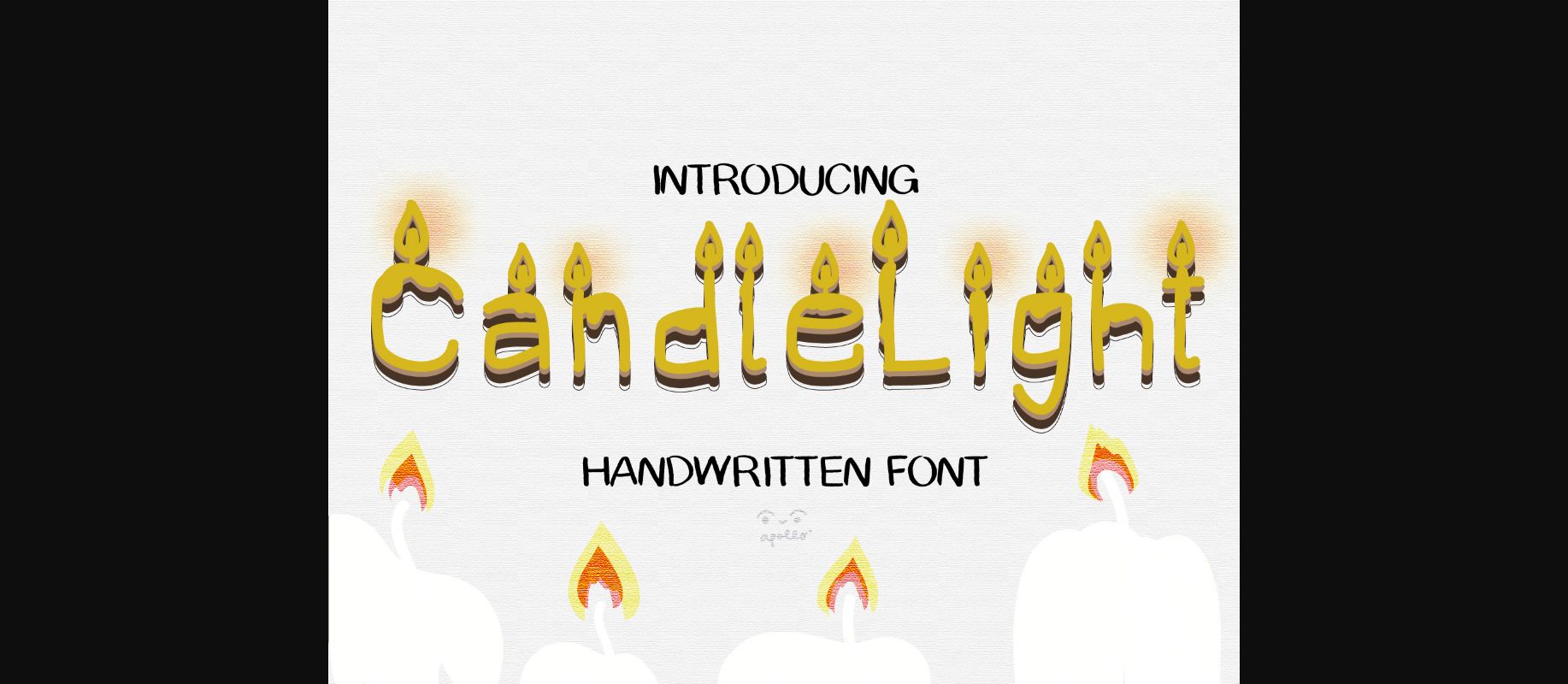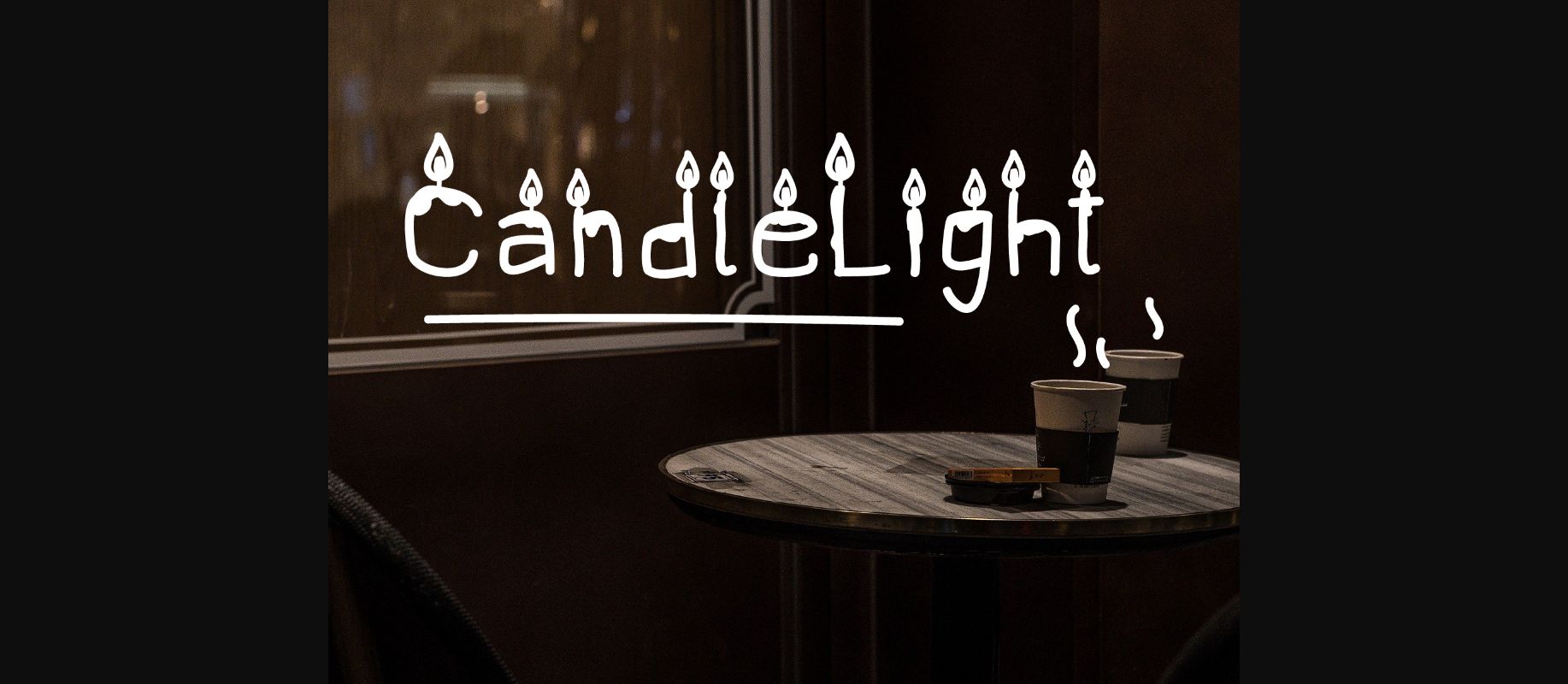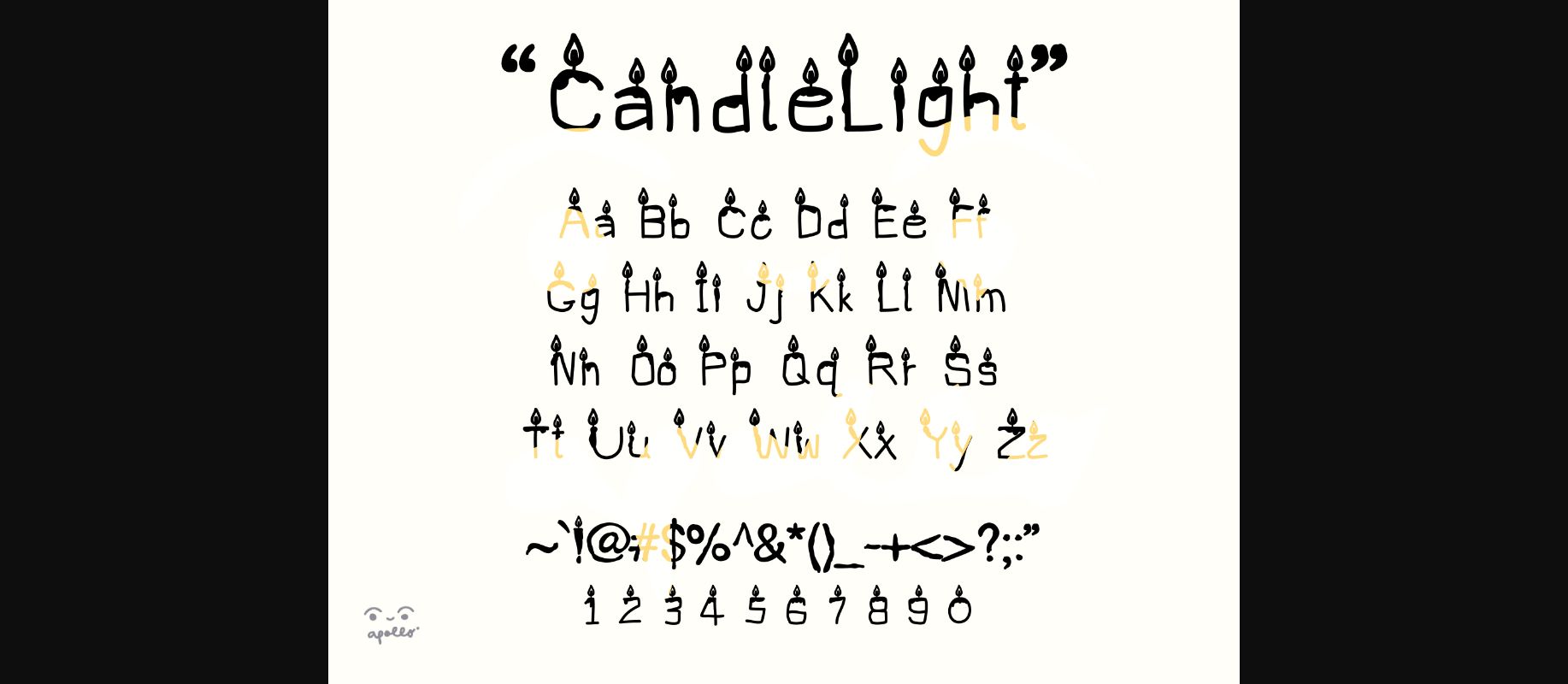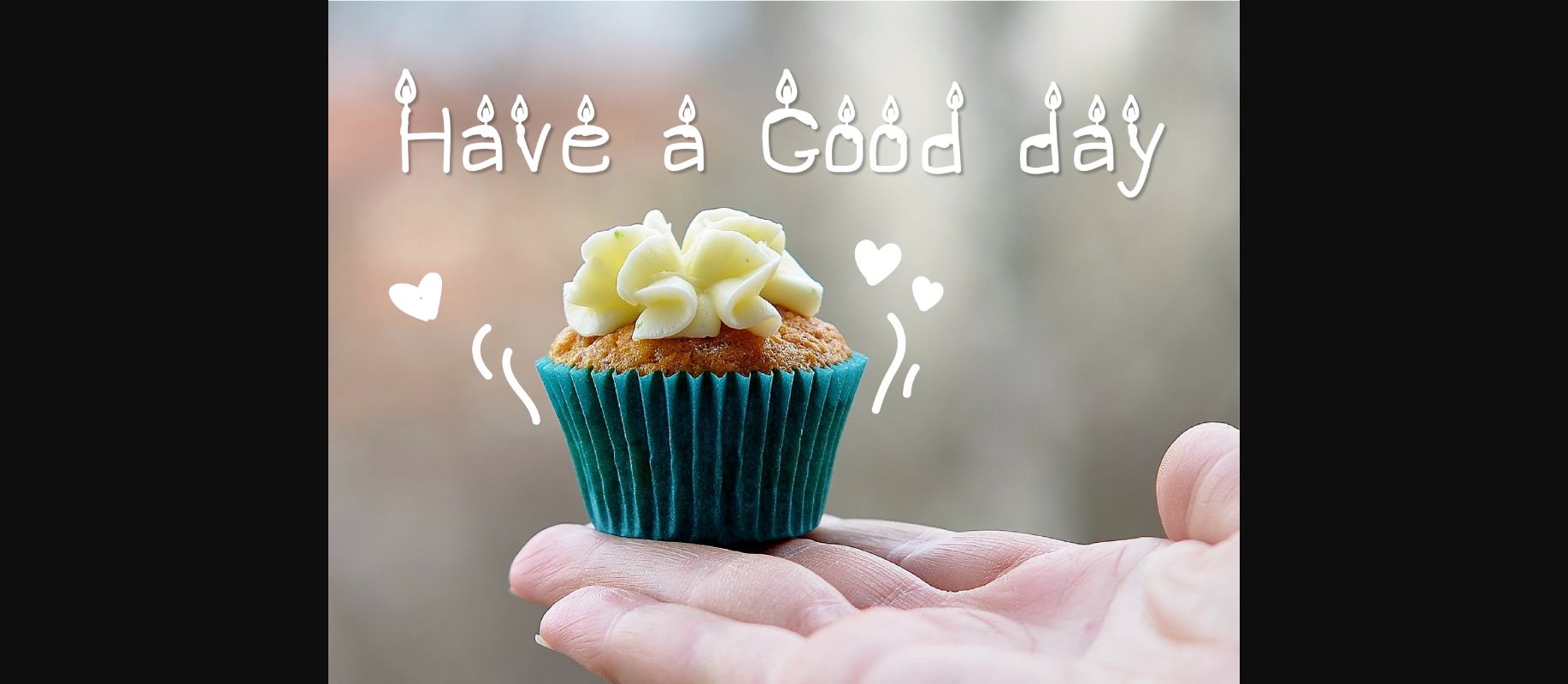
Candlelight Font
About Candlelight Font
Candlelight is a decorative font featuring candle-shaped letters that will add a fantastic feel to your designs. Use this font to create a unique birthday card to send to your friends, or use it on items that need a warm atmosphere.